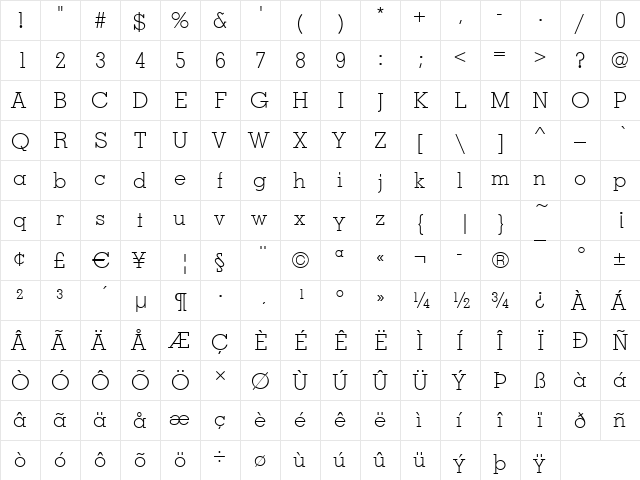
Missouri-Fine Regular
Design Context for Missouri-Fine Typeface
Missouri-Fine takes a measured approach to typography — its balanced proportions and neutral character make it a reliable workhorse for both digital and print work.